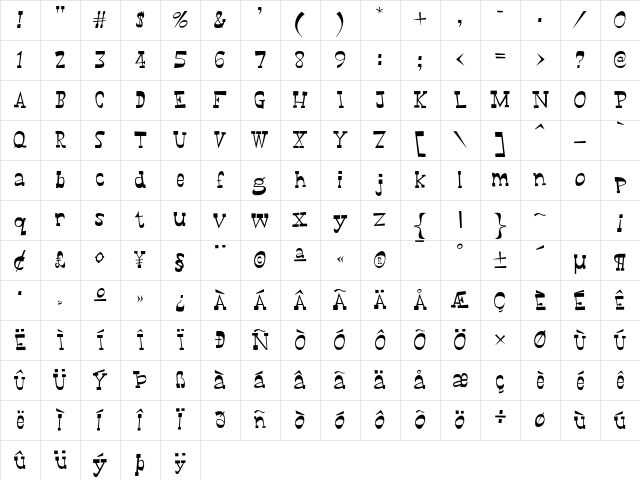
WayOutWest Regular
WayOutWest Family
Design Context for WayOutWest
WayOutWest is a composed and adaptable typeface that performs quietly and consistently across a wide range of design contexts.